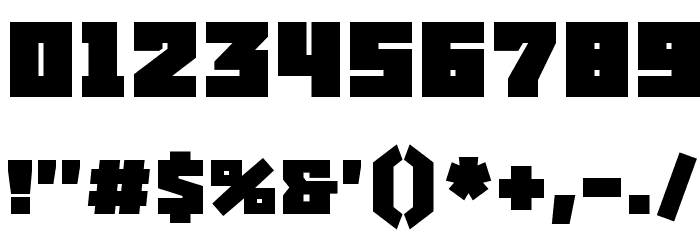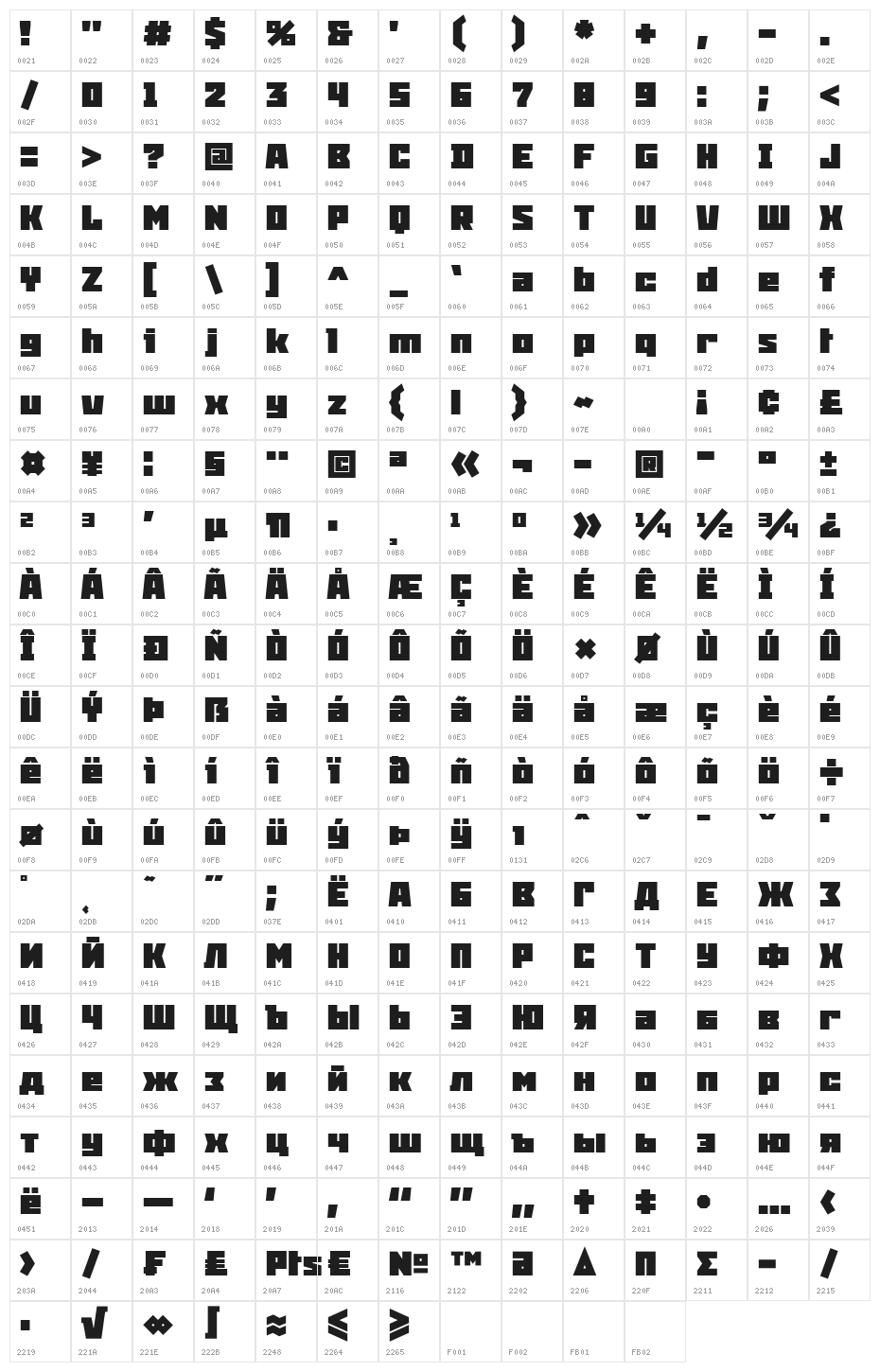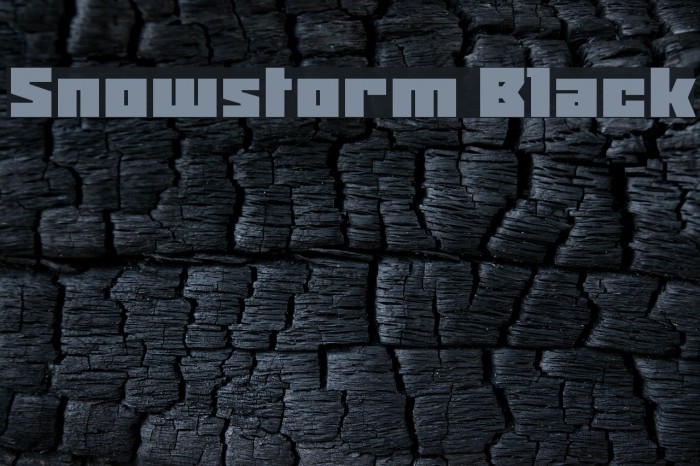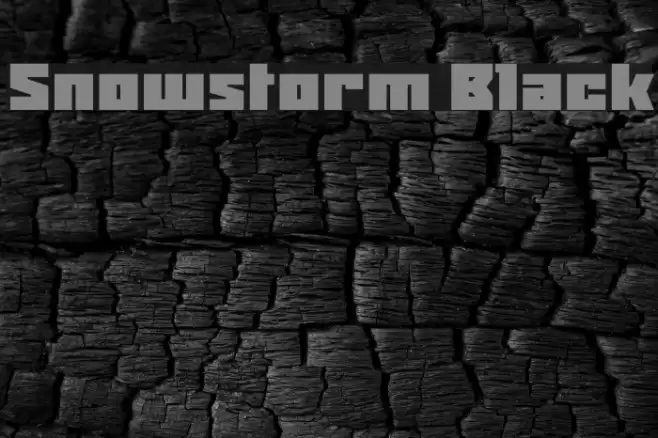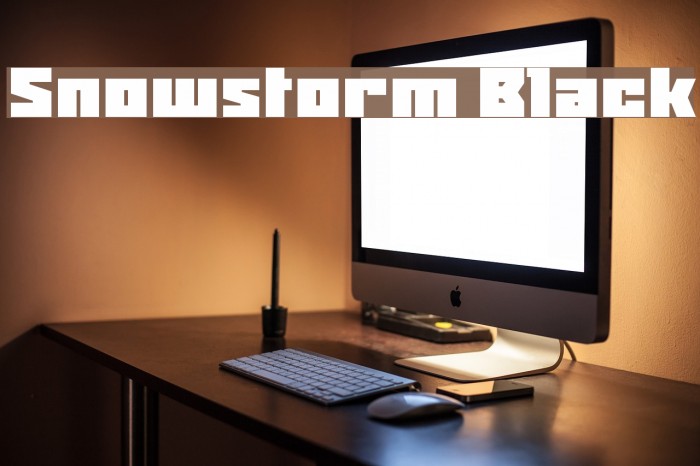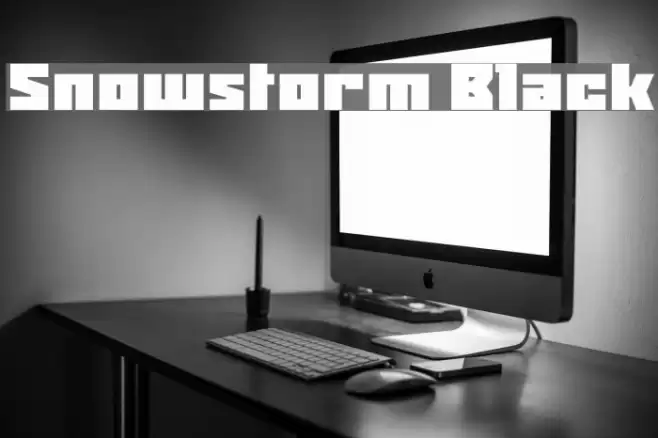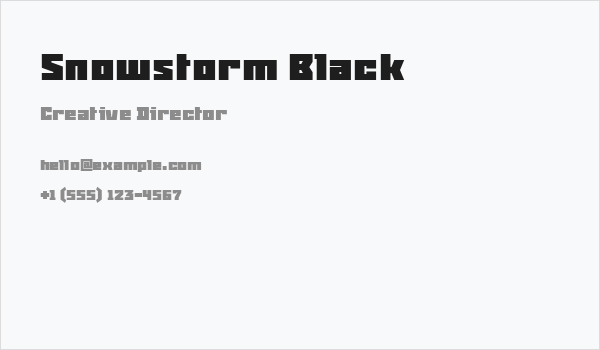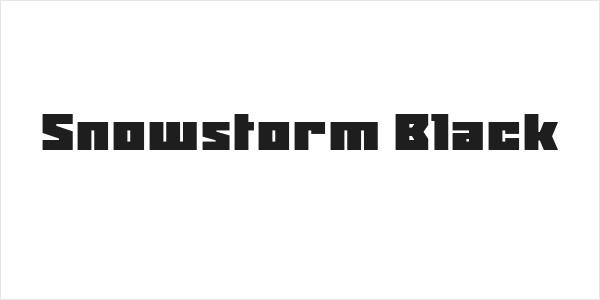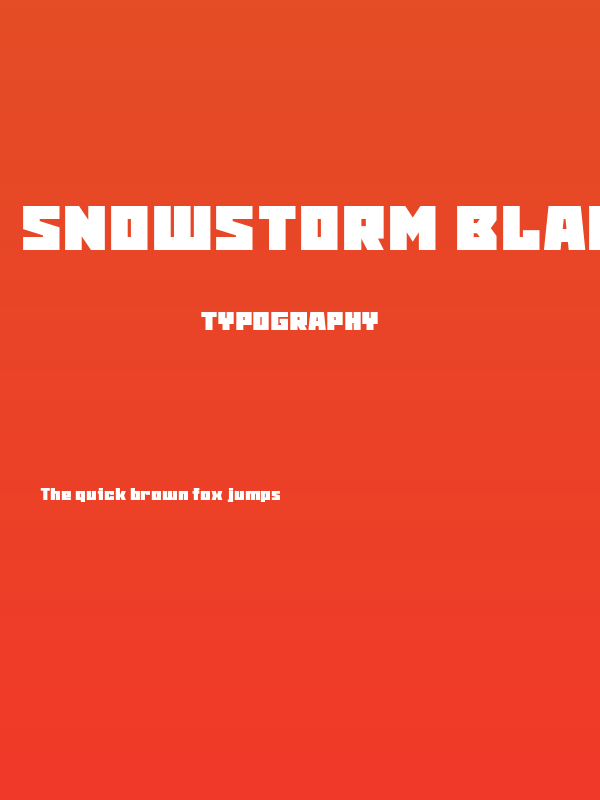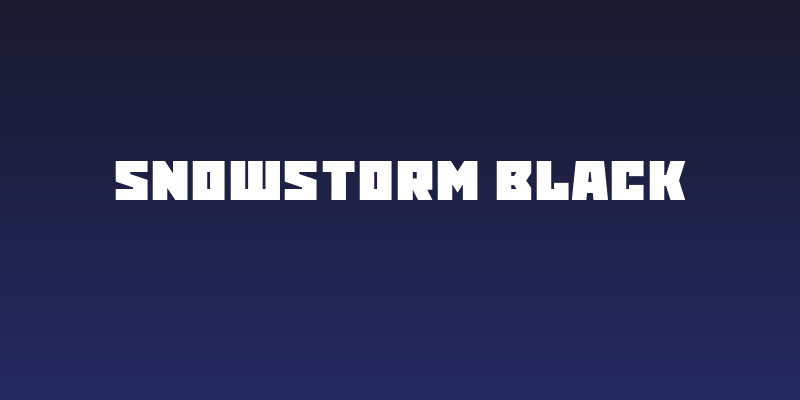
Snowstorm Black Font
Snowstorm Black Description
This font features a bold and blocky design with a strong geometric influence. The characters are uniformly thick, giving them a robust and impactful appearance. The angular edges and sharp corners contribute to a modern and assertive style, making it ideal for attention-grabbing headlines or titles. The uppercase and lowercase letters maintain a consistent weight, ensuring a cohesive look across different text sizes. The numerals and special characters are designed to match the boldness of the alphabet, providing a comprehensive set for various design needs.
| Proposed Projects | Ideal for posters, logos, branding, and any design requiring a strong visual impact. |